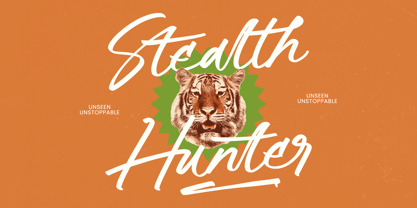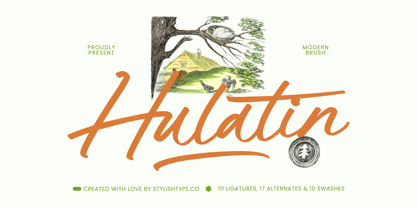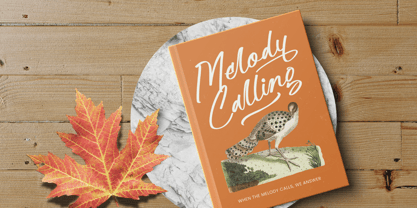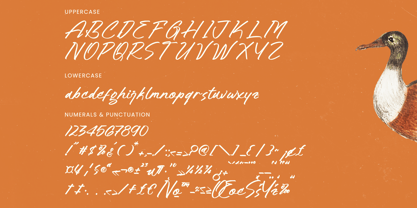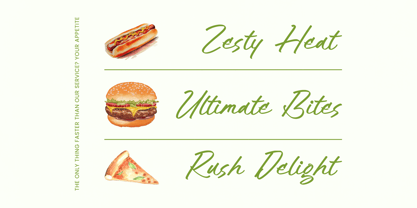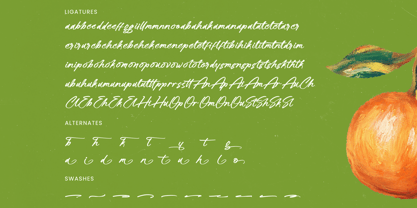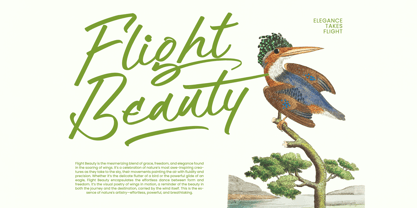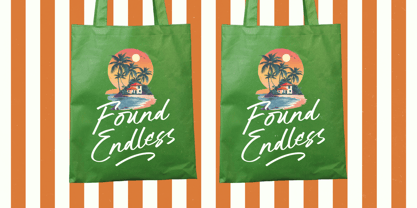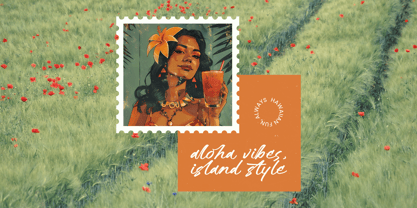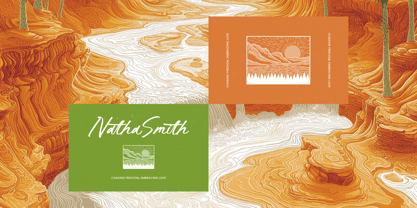
Hulatin
The Hulatin Font Family was designed by Heru Utama Putra and published by Stylishtype Studio. Hulatin contains 2 styles and family package options.
Hulatin is a modern handwritten brush font with an organic, rustic flow inspired by natural textures and handcrafted lettering. Its bold yet smooth strokes deliver an expressive personality perfect for branding, packaging, outdoor-themed graphics, vintage illustrations, nature logos, product labels, artisan businesses, and creative editorial layouts. With 111 ligatures, 17 stylistic alternates, and 10 swashes, Hulatin offers extensive flexibility for creating authentic hand-drawn titles that feel warm, personal, and visually engaging-ideal for projects that seek a natural, outdoor, and handcrafted aesthetic.